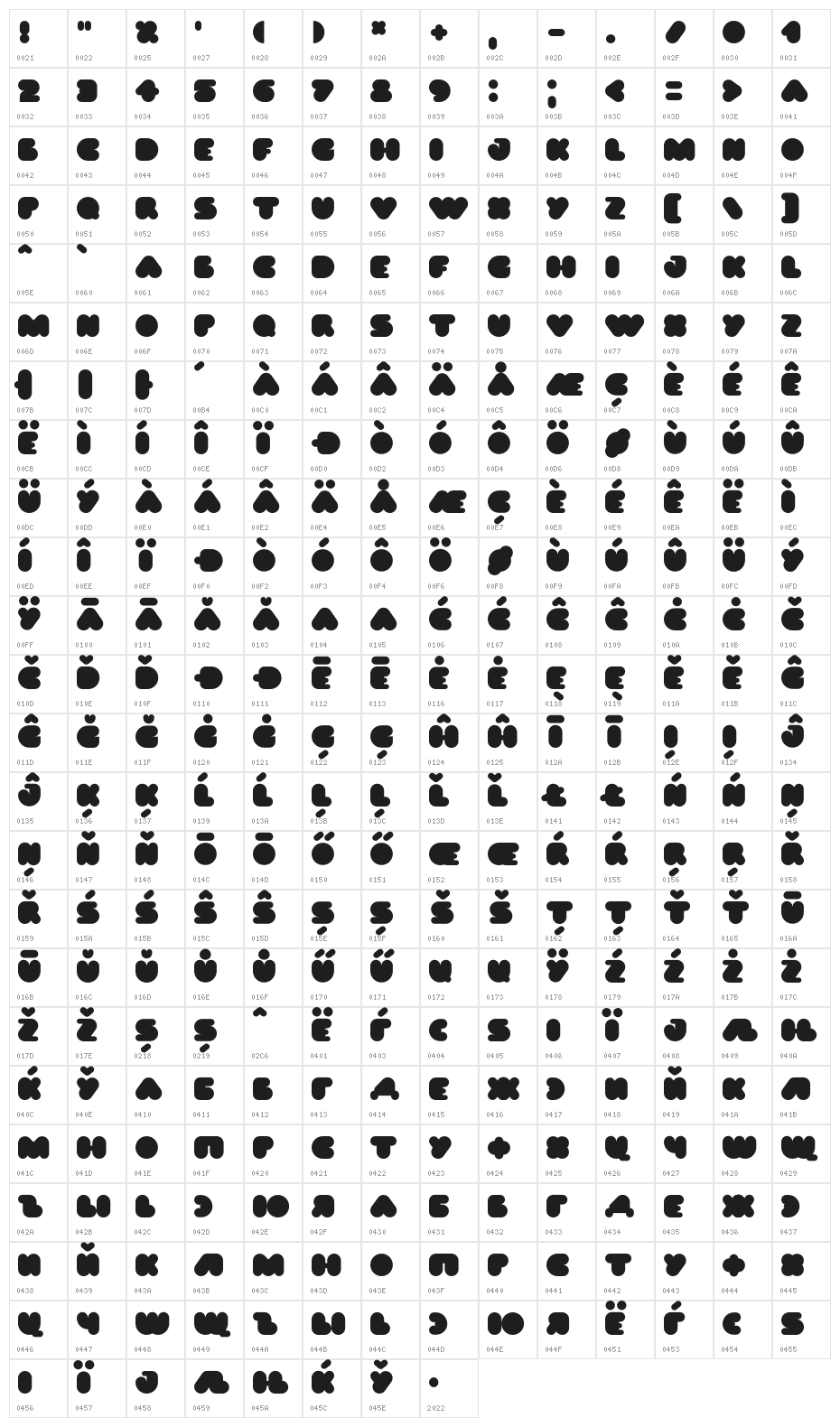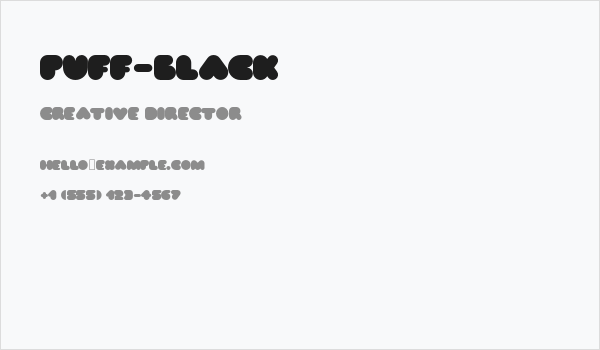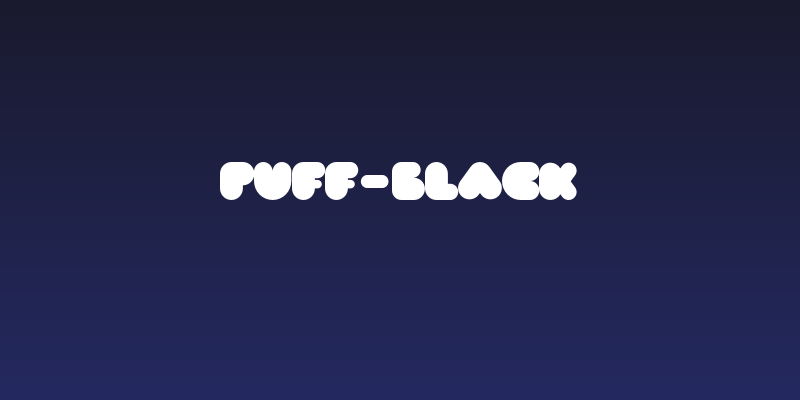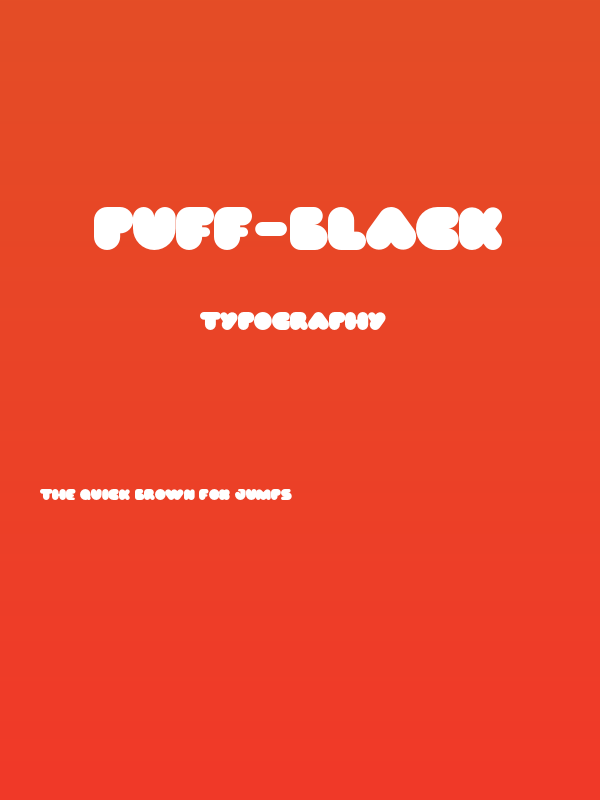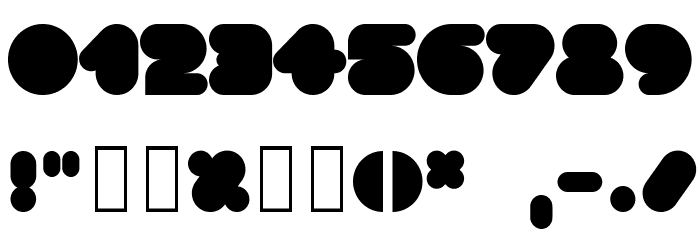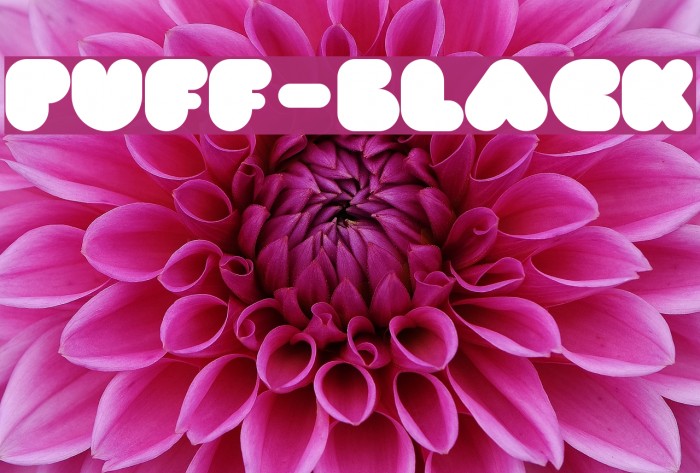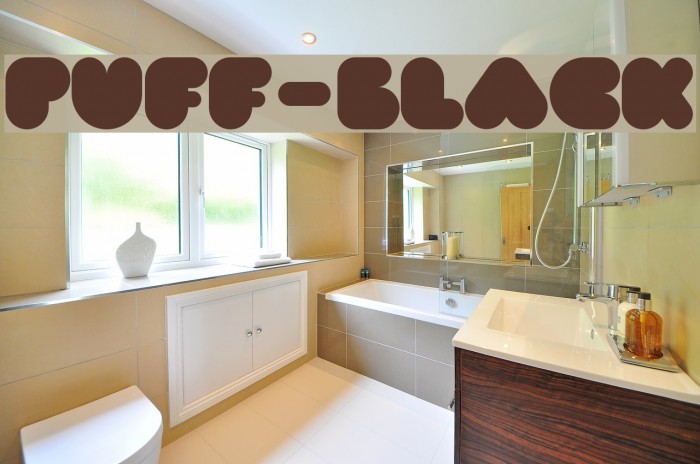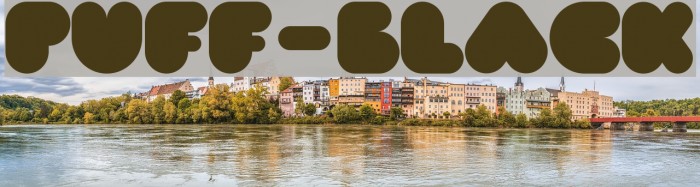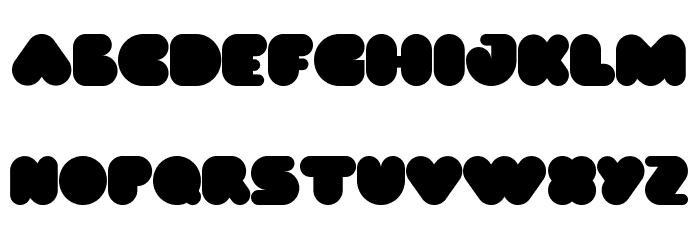
PUFF-Black Font
PUFF-Black Description
This font is characterized by its bold, rounded shapes that give it a playful and modern appearance. The letters are uniformly thick, with a consistent stroke width that creates a cohesive look. The rounded edges and lack of sharp angles contribute to a friendly and approachable feel. This style is reminiscent of bubble letters, often used in designs that aim to convey fun and creativity. The numbers and special characters maintain the same bold and rounded aesthetic, ensuring visual consistency across all elements.
| Proposed Projects | Ideal for children's books, playful branding, posters, and any design that requires a fun and approachable aesthetic. |